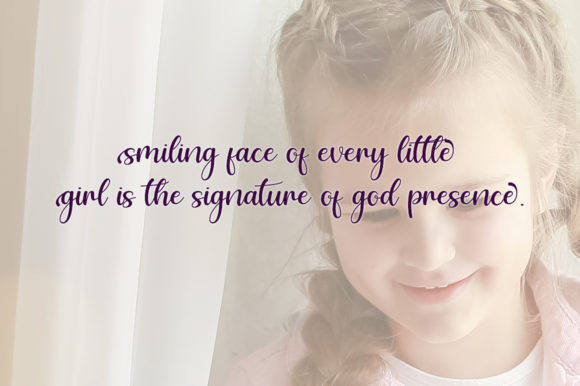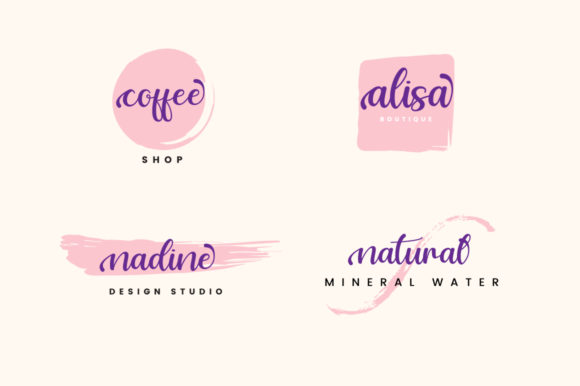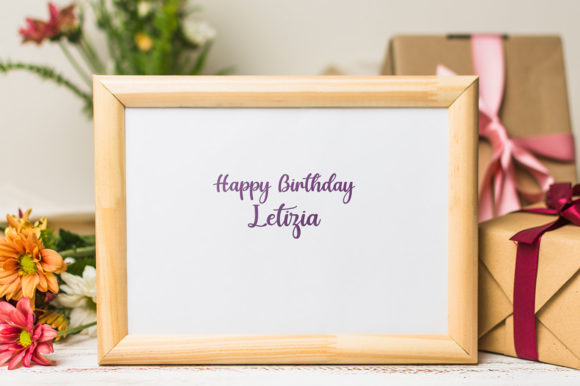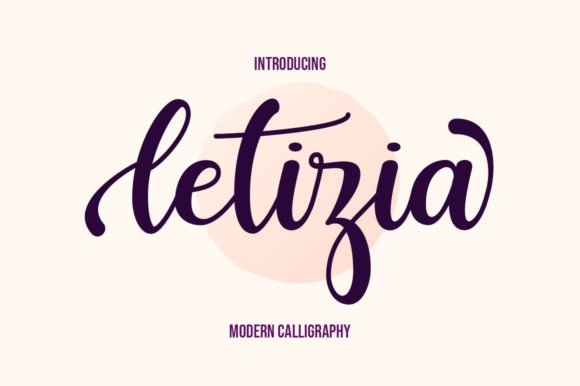
Introduction to Letizia Font
Letizia is a beautiful script font, featuring a sweet flow and modern, calligraphy swashes.
It looks lovely on invitations, thank you cards, quotes, greeting cards, logos, business cards and every other design which needs a romantic touch This font is PUA encoded which means you can access the available glyphs and swashes with ease.
Key Features of Letizia Font